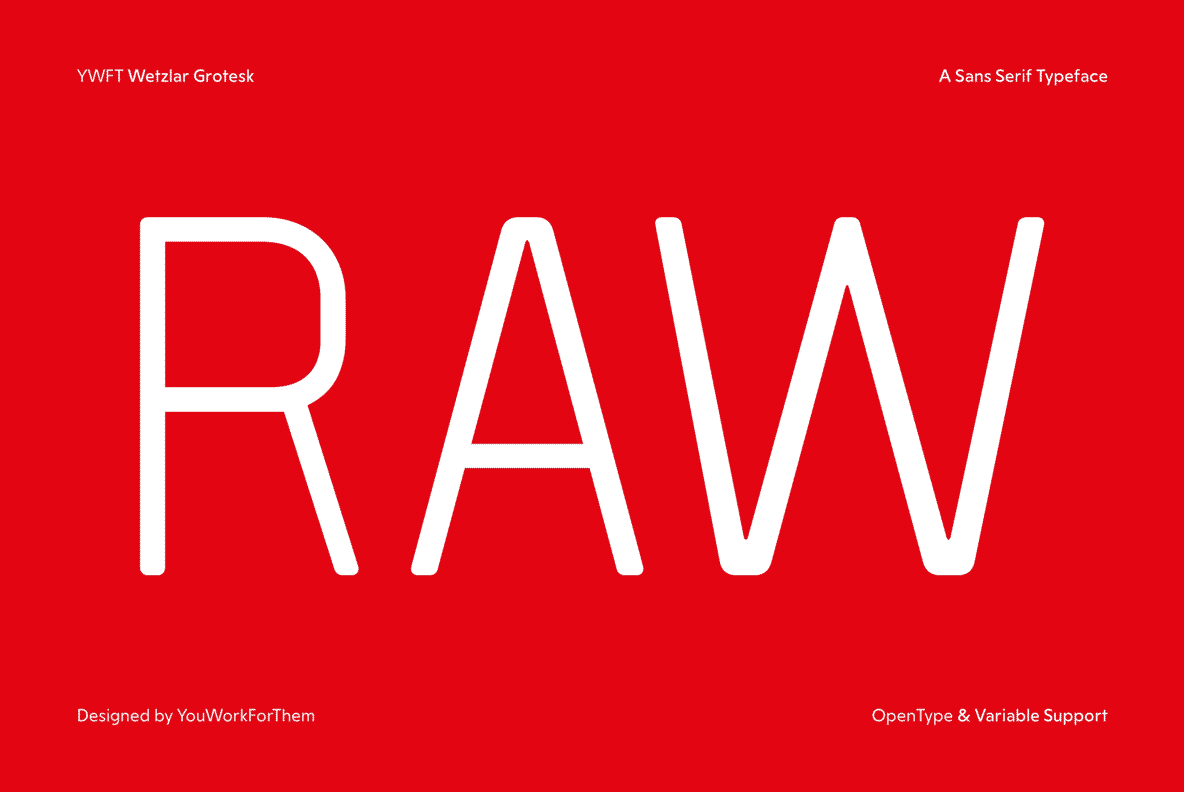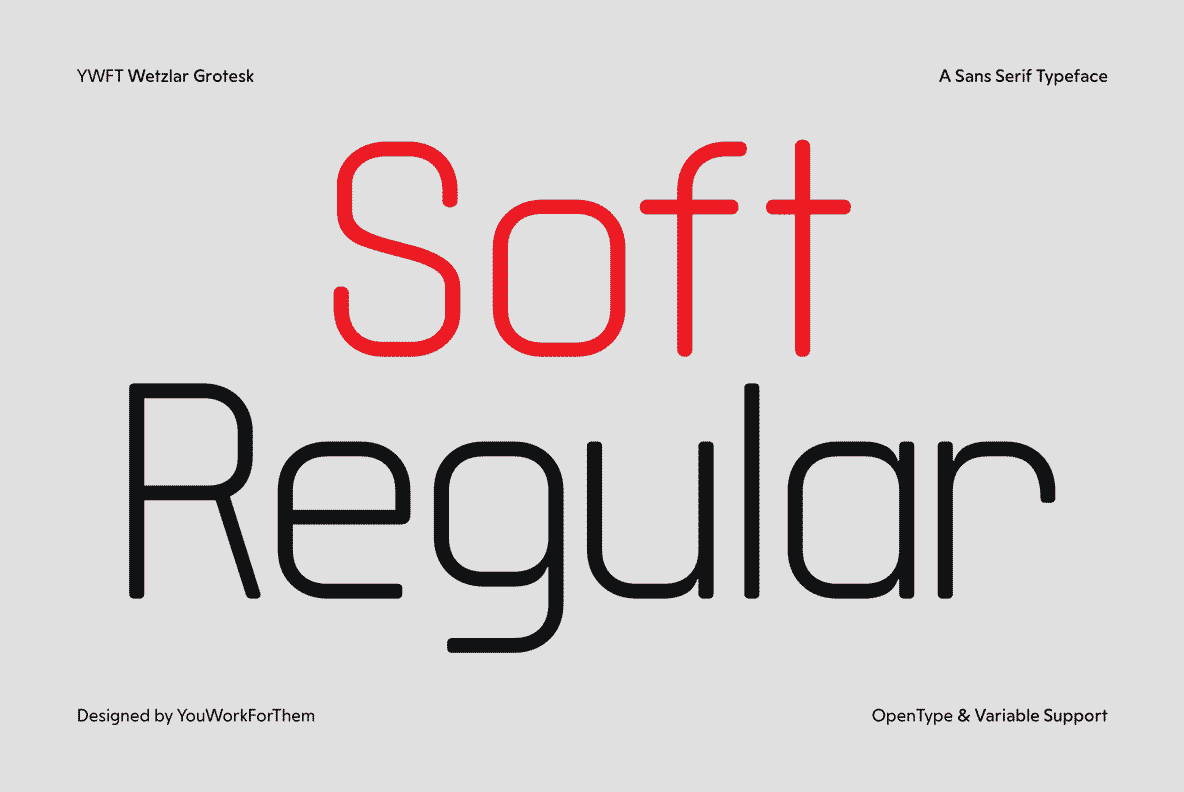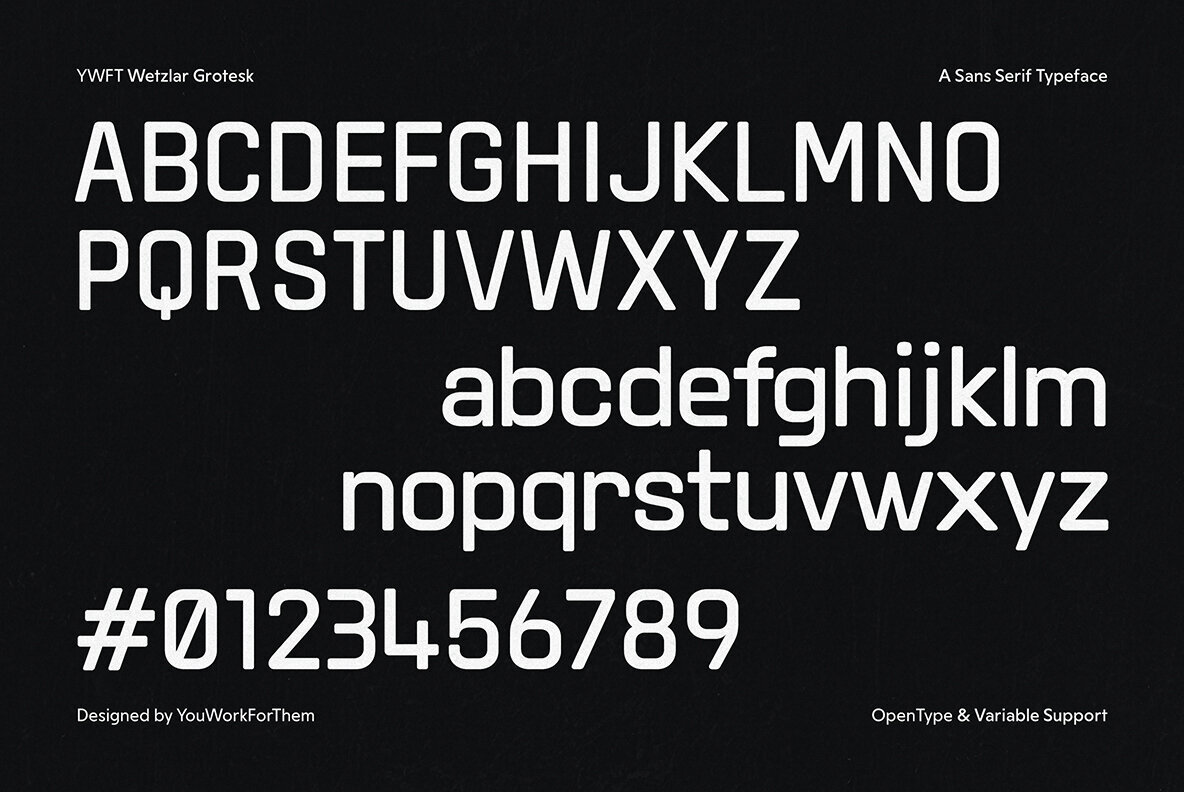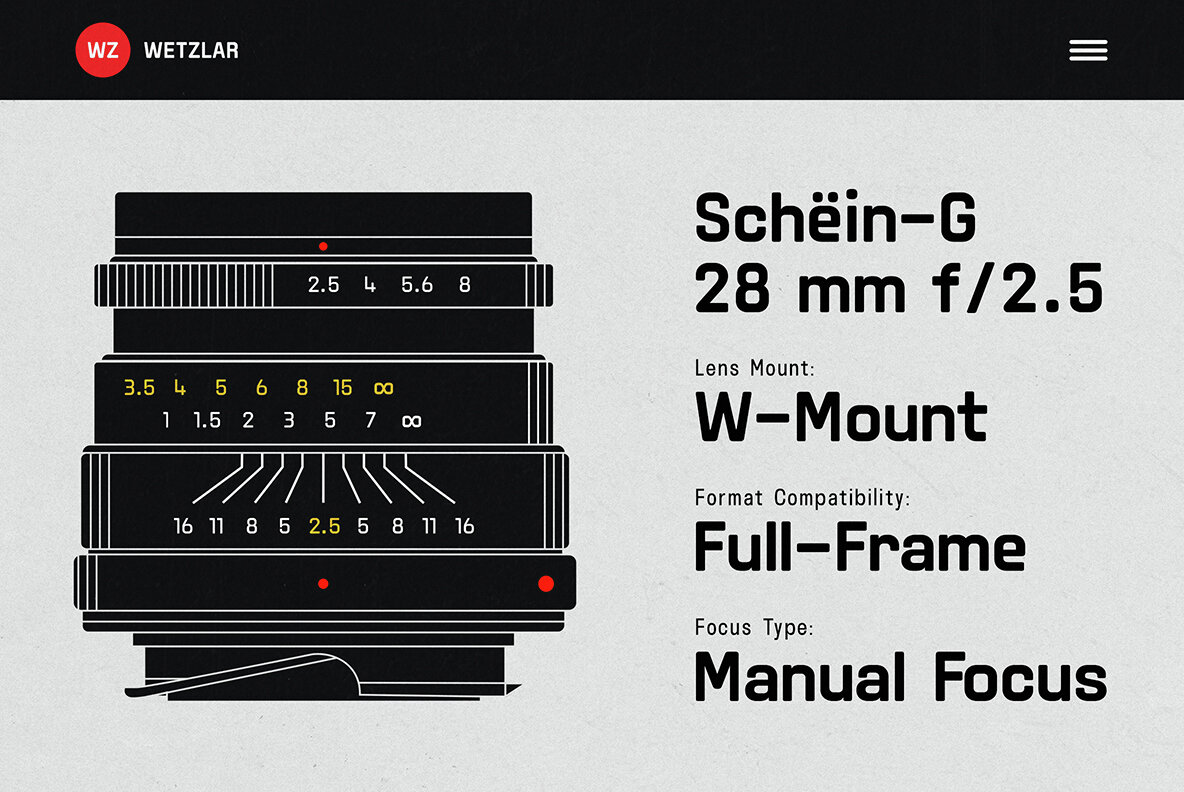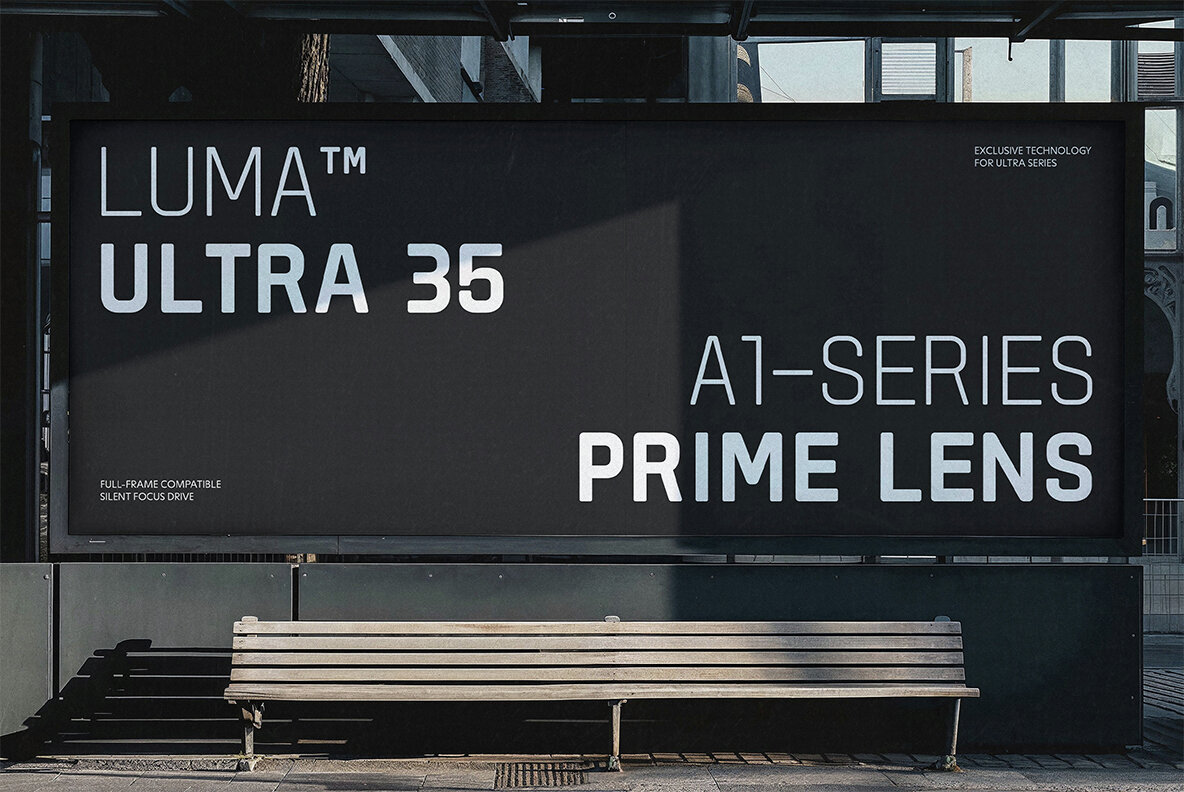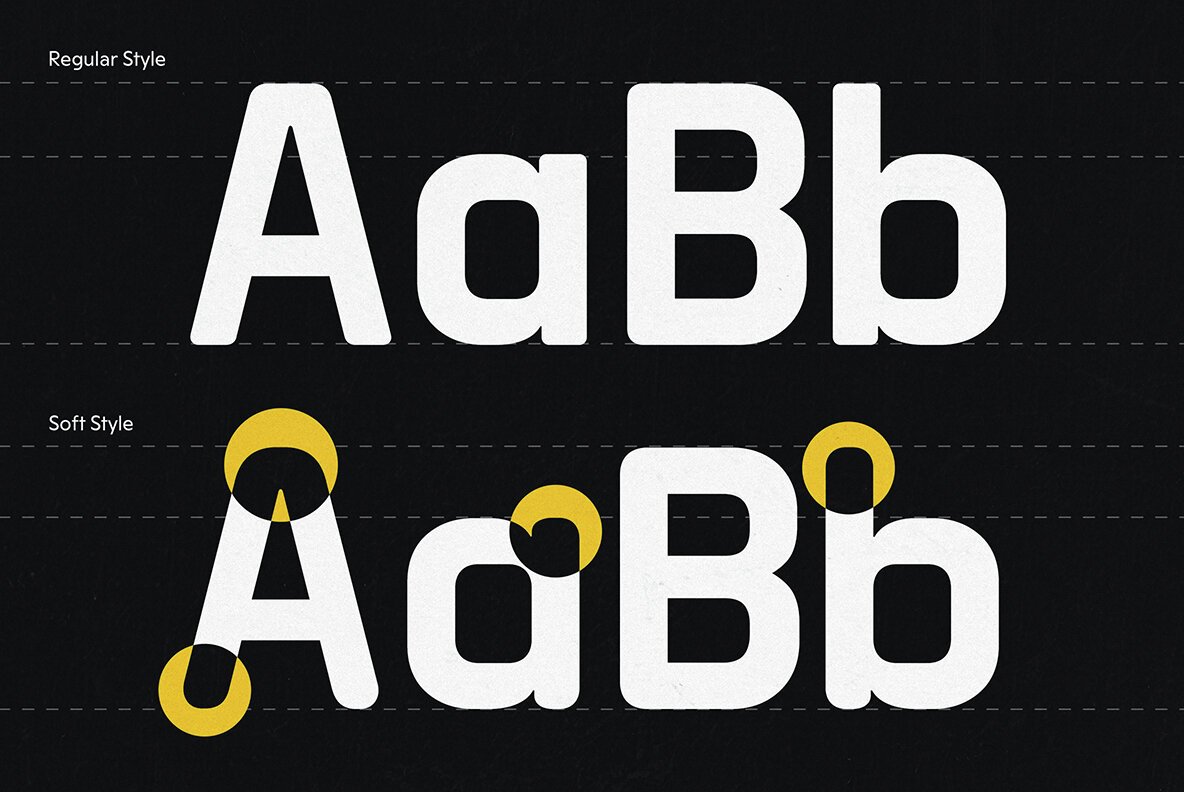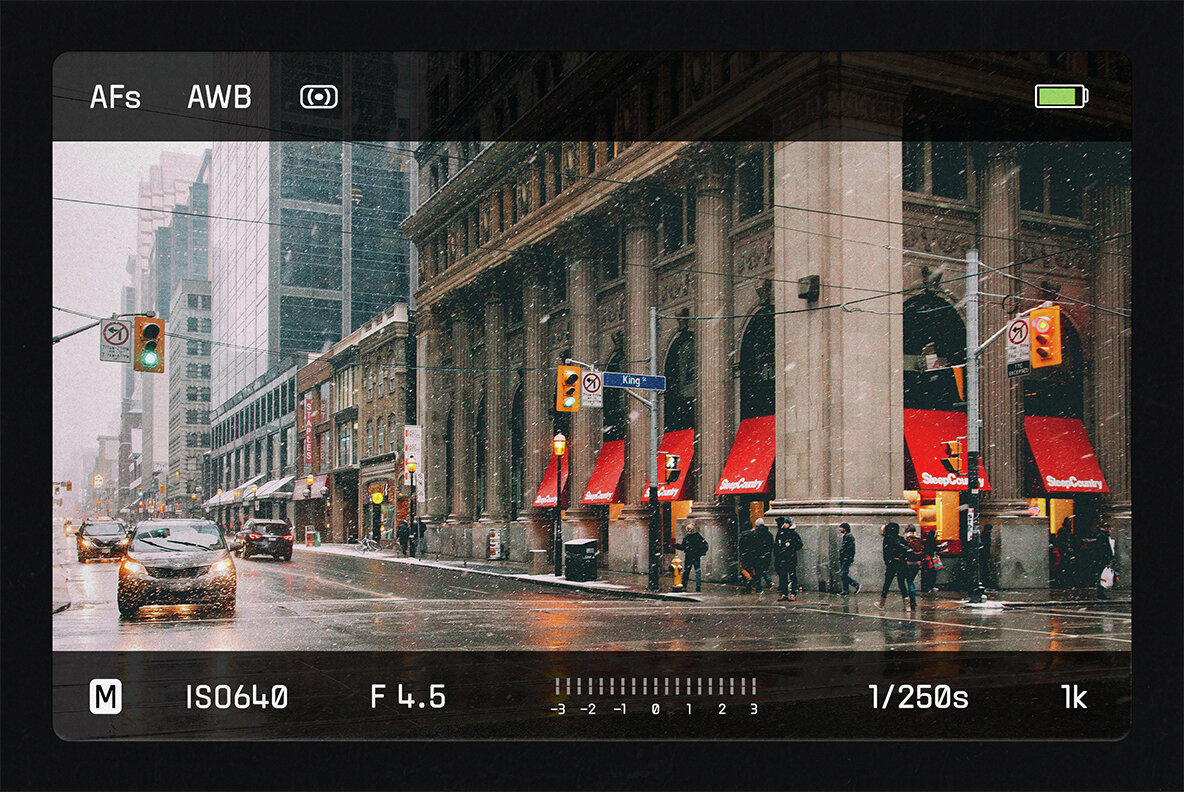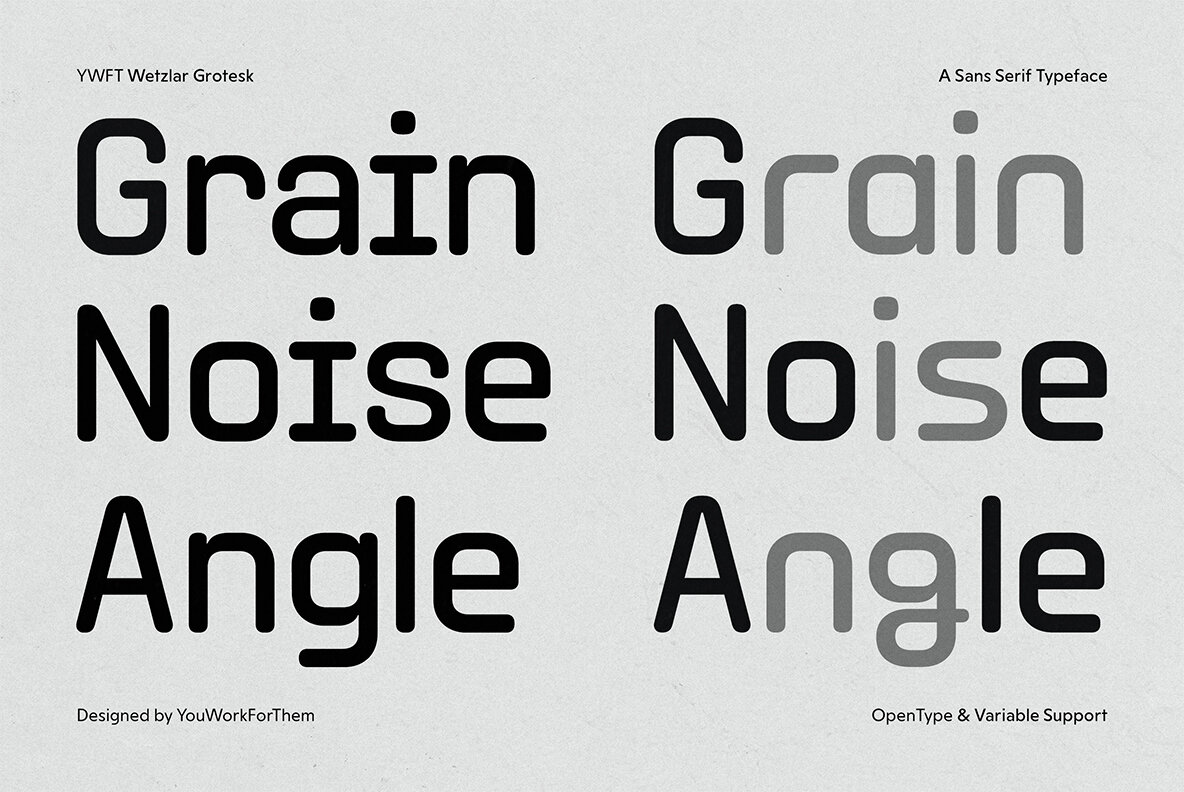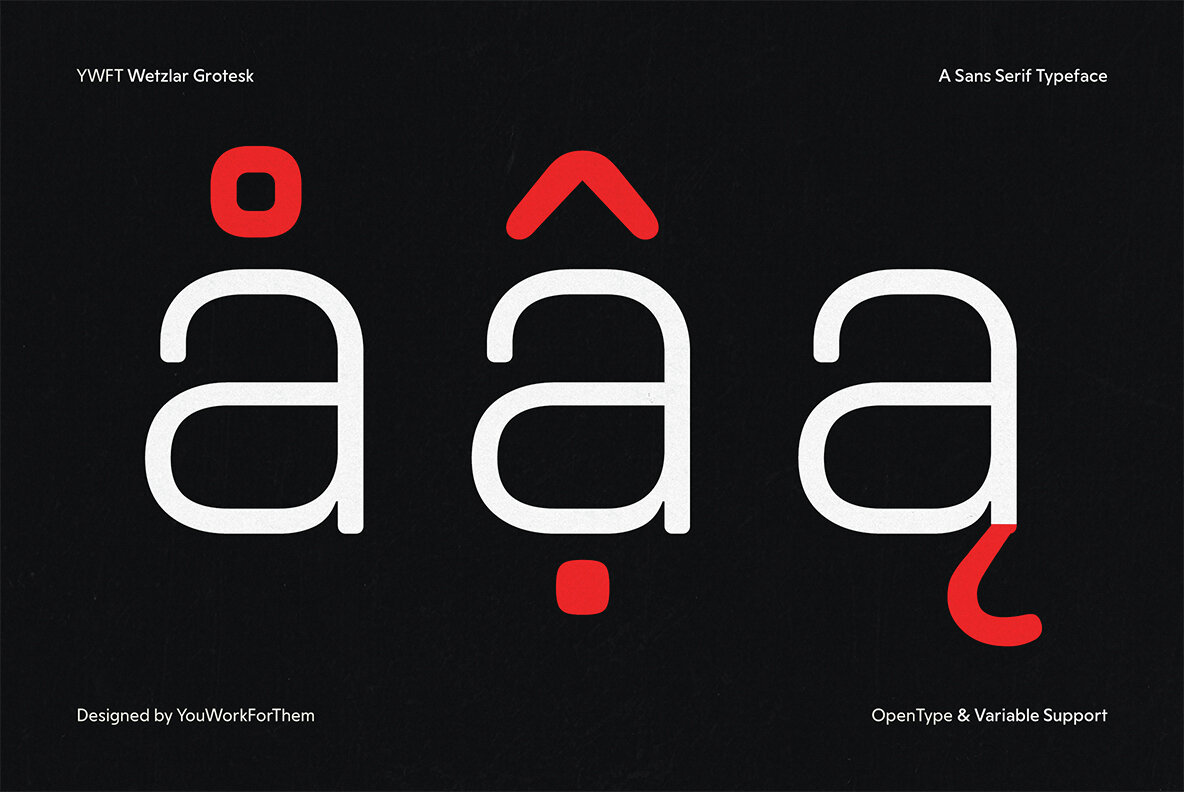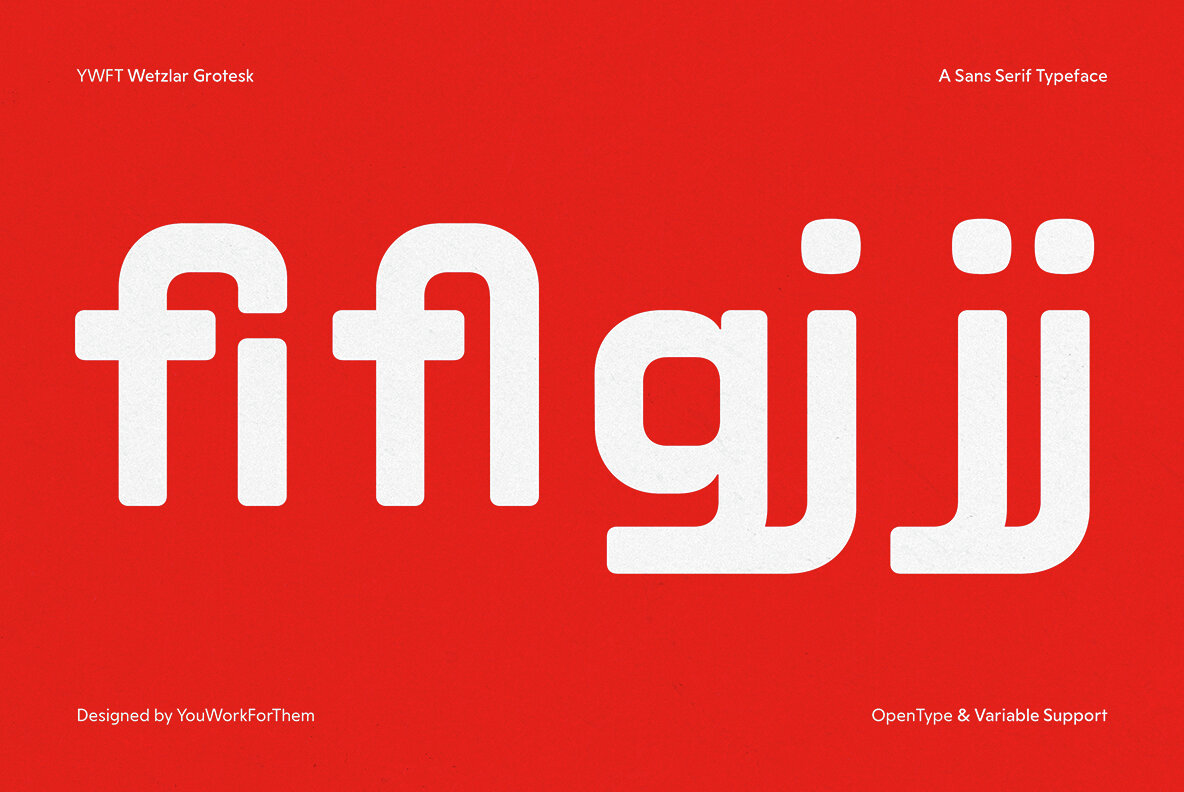
YWFT Wetzlar Grotesk Font
Wetzler Grotesque is a modern typeface inspired by the clean logic of mid-century German industrial design. While alluding to the precision of a renowned photography equipment brand, Wetzler Grotesque establishes its own identity as a utilitarian sans-serif tailored for contemporary digital screens and designs. Lanched in 2025, this modern font embodies a fresh approach rooted in modern design principles. The font draws inspiration from the compact, engraved lettering typical of high-end optical and mechanical devices. Its exacting curves and substantial presence infuse projects with a mechanical yet approachable quality, making it ideal for branding, video games, web design layouts, and interface design. The typeface family includes Light, Regular, Bold, and Black weights, each available with an optional Soft style. This dual flexibility enhances legibility at smaller sizes and offers warmth, making it perfect for print and digital applications. Wetzler Grotesque is crafted for screen use, born from scratch as a native typeface fine-tuned for clarity, consistency, and contemporary typographic demands. This design, one of our most refined releases, is the result of extensive testing and close collaboration between our type designers and graphic designers, who worked together to fine-tune every detail of this elaborate new release. Available exclusively from YouWorkForThem, a reliable source of design resources for over two decades. Additional products used for slideshow images: Noitce: Wetzler Grotesque is a typographic homage to the industrial and optical design legacy of 20th-century rangefinder cameras. It is an independent design not associated with any existing camera brands.Wetzler Grotesque: Inspired by Precision Optics, Built for the Digital World
Designed with Purpose
Built for Versatility
Font Features:
A Digital-First Typeface